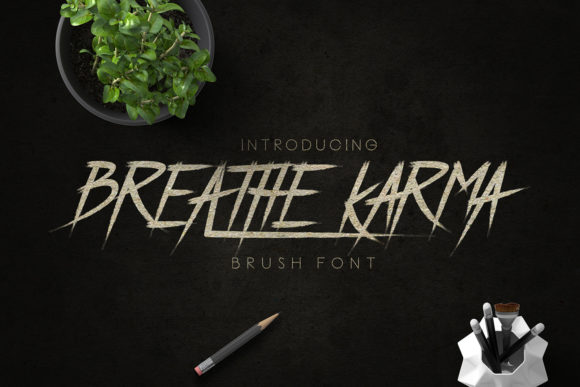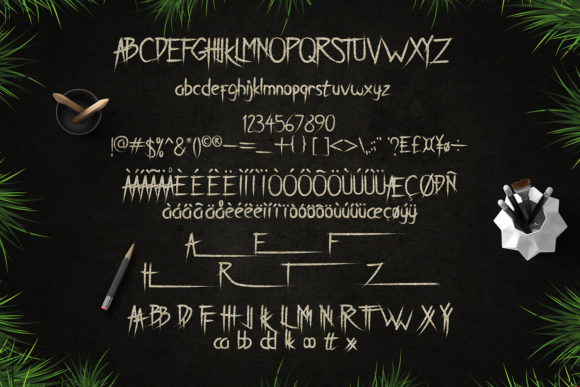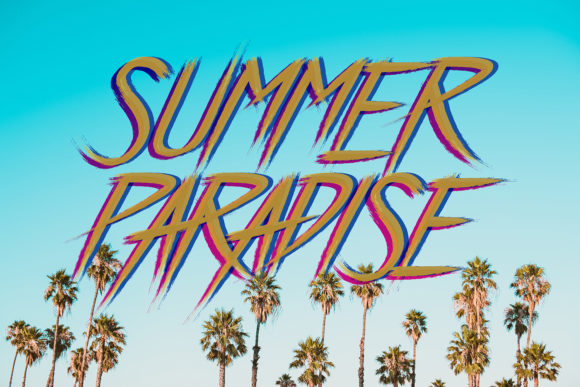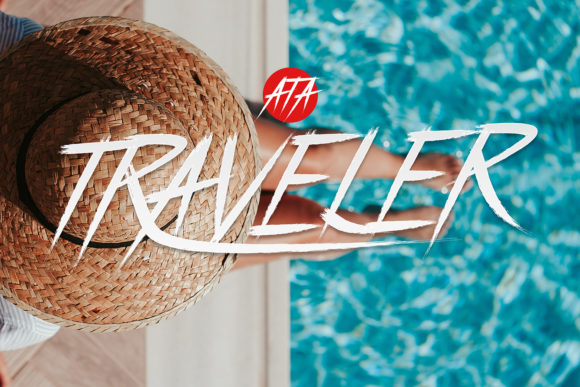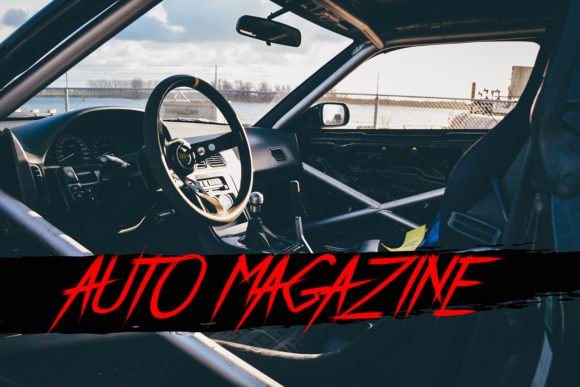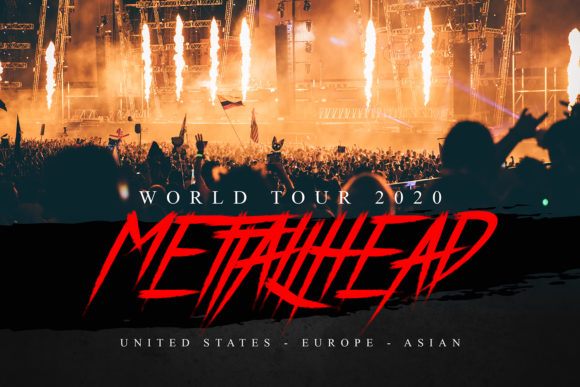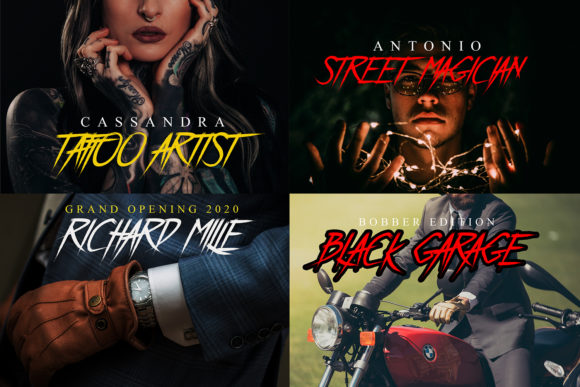
HomeScript FontsBreathe Karma Font Script Fonts Breathe Karma Font FacebookXPinterestWhatsApp Breathe Karma Font Poster 2 Breathe Karma Font Poster 3 Breathe Karma Font Poster 4 Breathe Karma Font Poster 5 Breathe Karma Font Poster 6 Breathe Karma Font Poster 7 About Breathe Karma Font Breathe Karma is a vintage brush-style font created by madeDeduk. DOWNLOAD NOW People also explored Style Night Font Rotroys Font The Sandwich Font Together Font Phasquel Font Plan Smes Font Shaibel Font Girly Font Moluska Font 321 0 TagsBreathe Karma Font Previous articleChandry FontNext articleShingitalis Font LEAVE A REPLY Cancel reply Comment: Please enter your comment! Name:* Please enter your name here Email:* You have entered an incorrect email address! Please enter your email address here Website: Save my name, email, and website in this browser for the next time I comment. Personal Use Free Fake Receipt Personal Use Free Read more about this font Bestlife Personal Use Free Read more about this font Batik Classic Personal Use Free Read more about this font Rheiborn Personal Use Free Read more about this font BLOG Best Fonts for YouTube Videos: Make Your Thumbnails Stand Out Best Fonts for YouTube Videos: Make Your Thumbnails Stand Out Choosing the right font can make a massive difference in how your YouTube videos perform.... Modern Sans-Serif Fonts That Brands Love in 2025 Using Fonts in Digital Marketing: Tips to Strengthen Your Brand Identity Where to Buy American Fonts Online in 2024